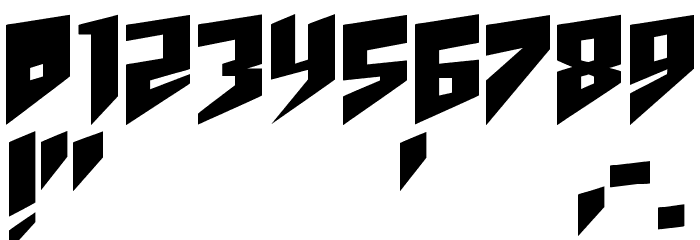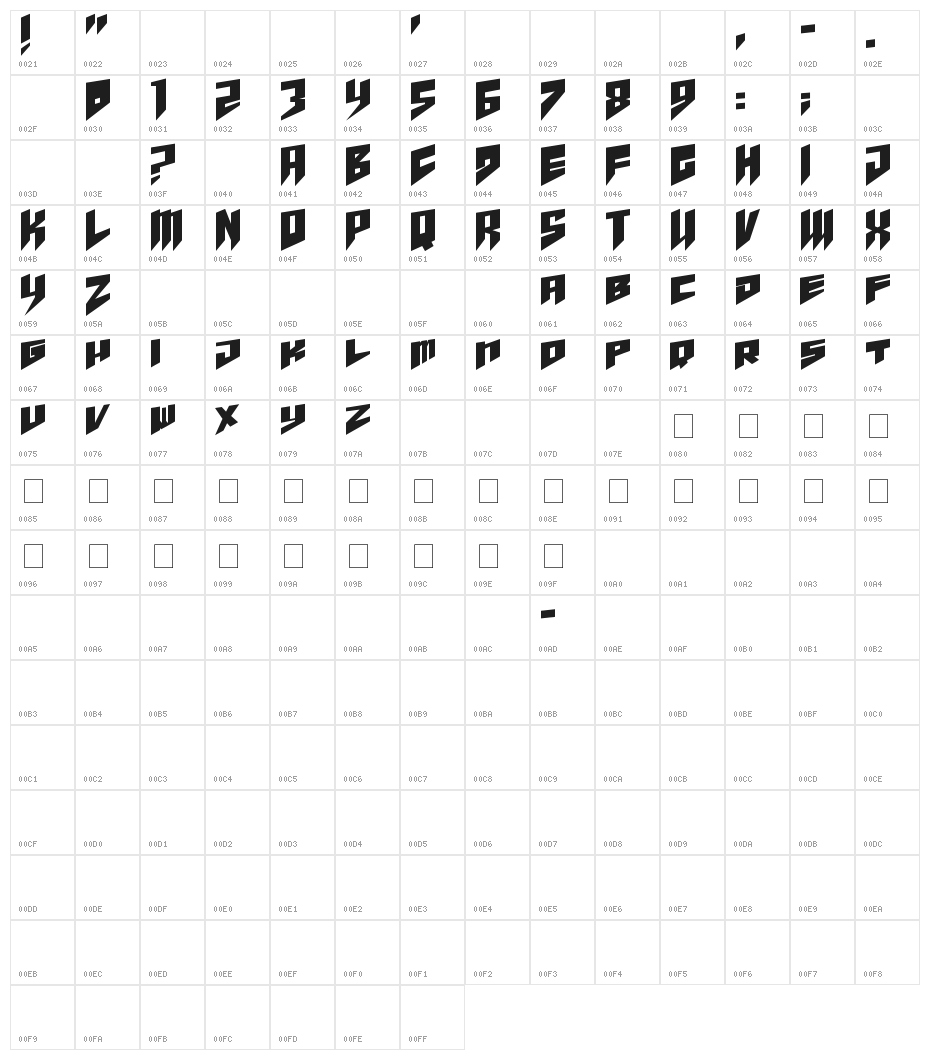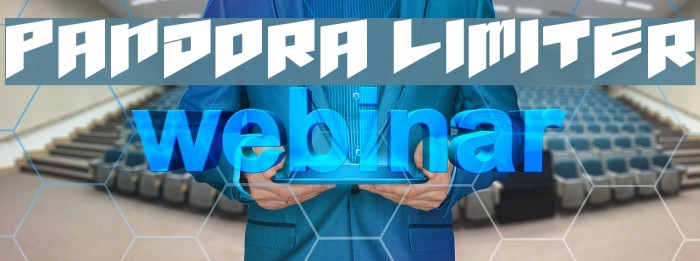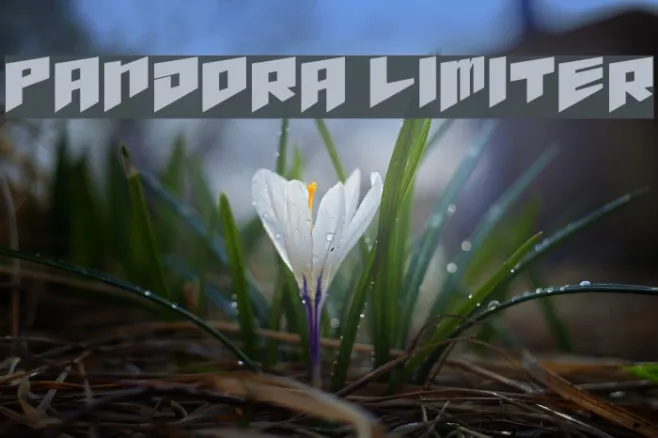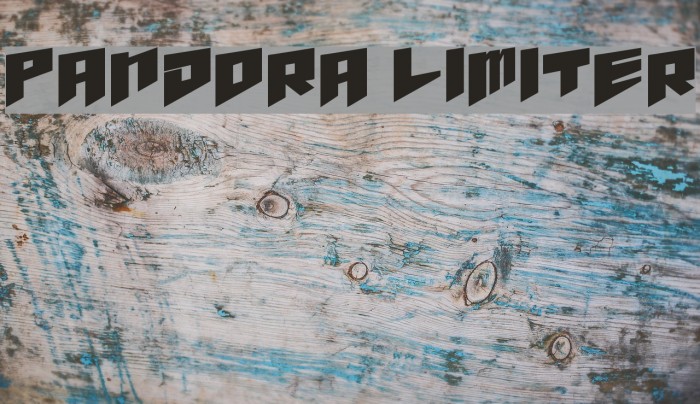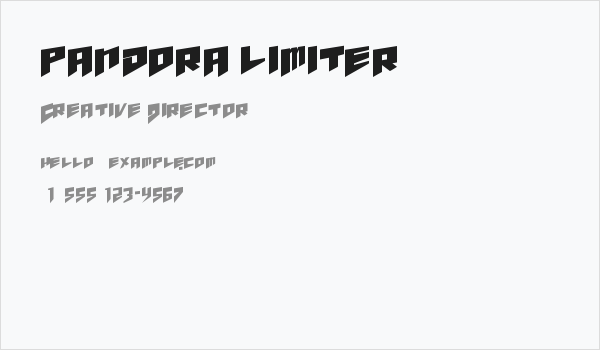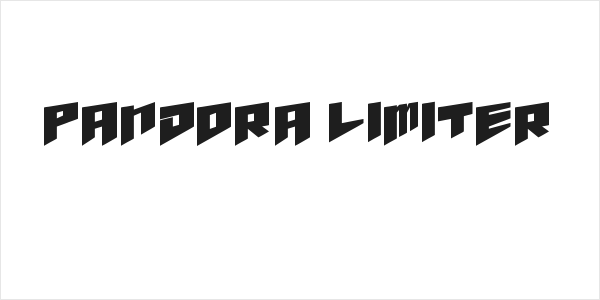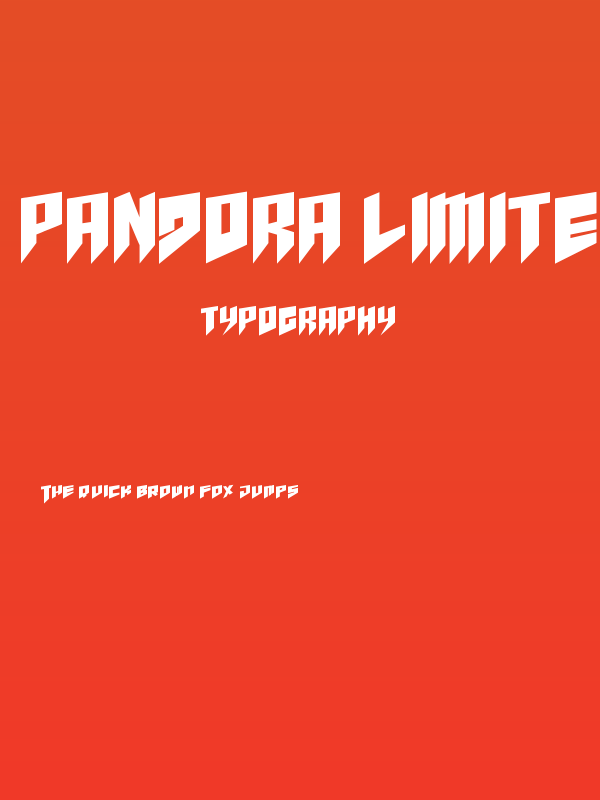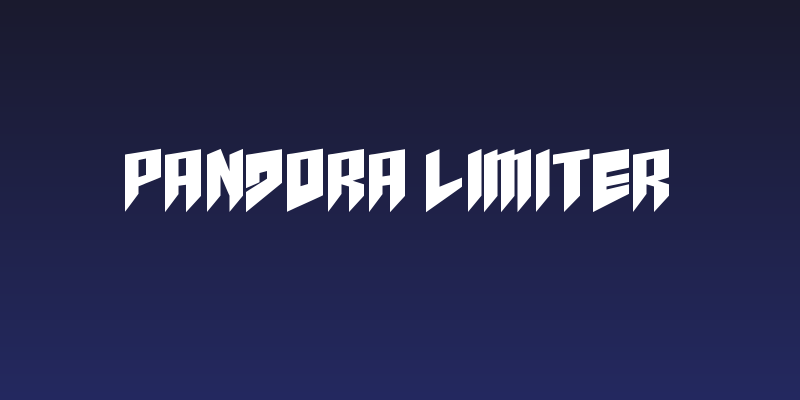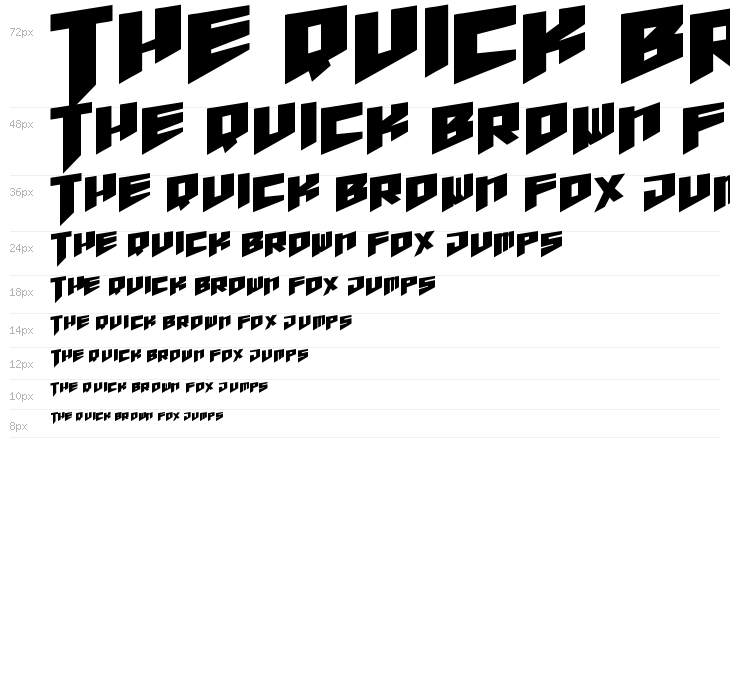
pandora limiter Font
pandora limiter Description
This font features a bold, angular design with sharp edges and a futuristic aesthetic. The characters are heavily stylized, with a strong emphasis on diagonal lines and geometric shapes. The uppercase and lowercase letters maintain a consistent style, creating a cohesive look across the alphabet. Numbers and special characters follow the same design principles, ensuring uniformity. The font's aggressive and dynamic appearance makes it ideal for projects that require a modern and edgy feel. Its unique style is particularly suited for attention-grabbing headlines and logos.
| Overall Style | Modern, Futuristic |
| Proposed Projects | Ideal for sci-fi themed projects, video game titles, tech company logos, and dynamic posters. |